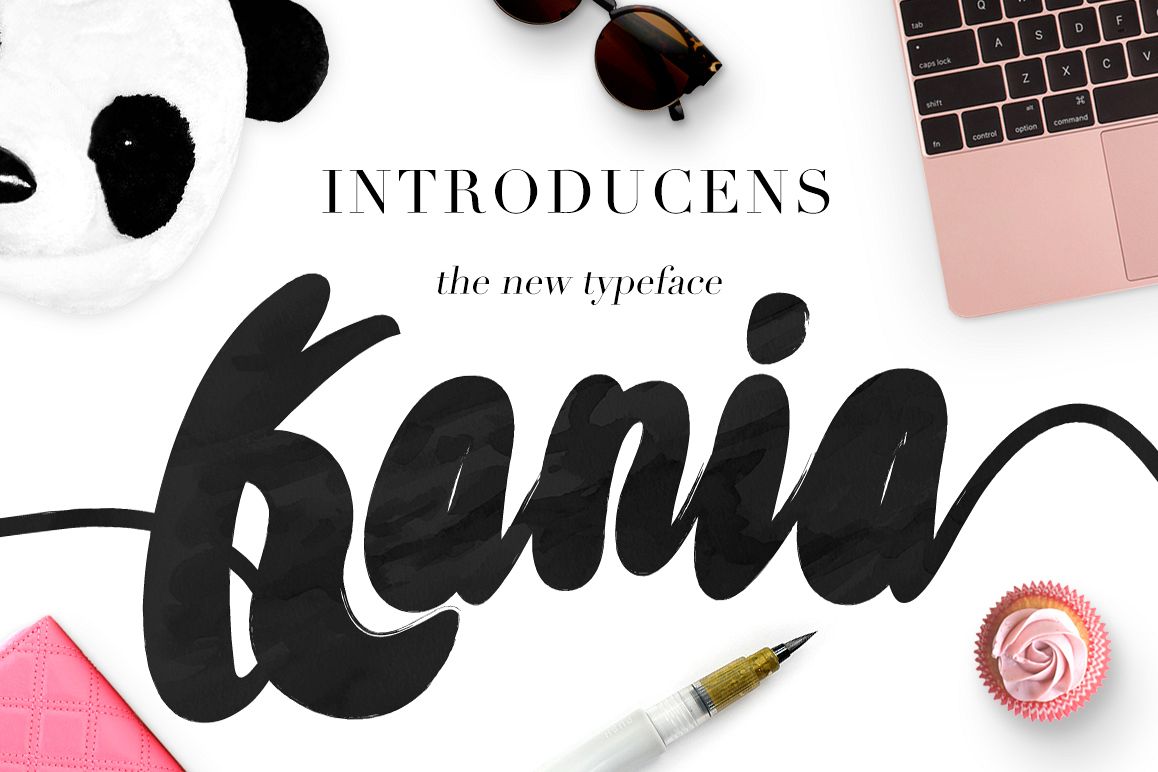
Kania Script
by Maulana Creative
Give your designs an authentic brush handcrafted feel. "Kania Script" is perfectly suited to stationery, logos and much more with long swashes.